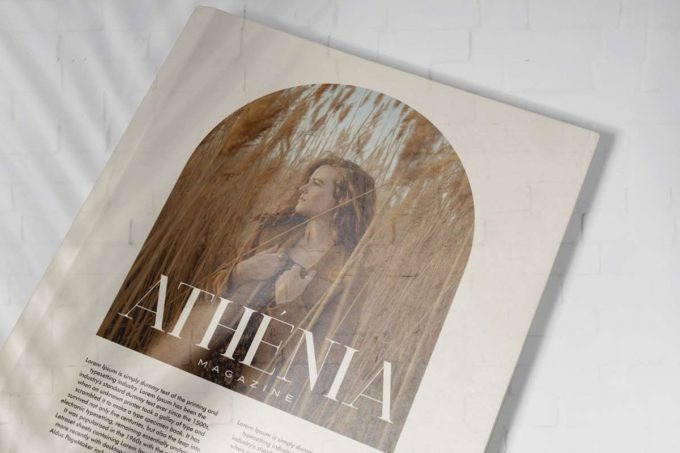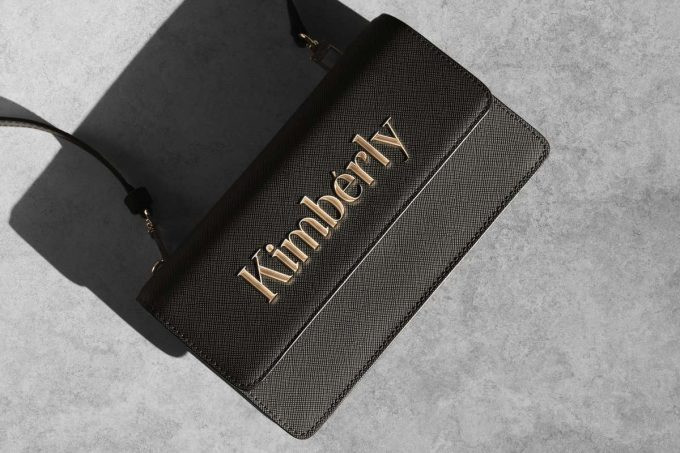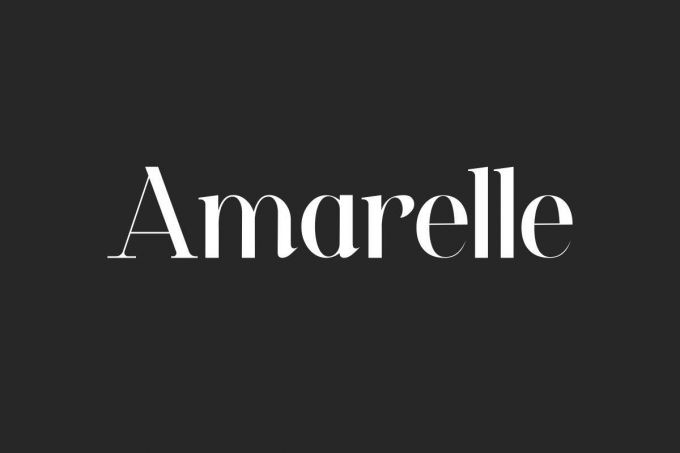
Amarelle Font
Amarelle Serif Font is a stunningly elegant serif display font, exclusively designed by VinType Studio. Every character in this font has a sophisticated style, casual and a luxurious feels that will make your designs standout from crowd while keeping it easy to be recognized. It will be suitable for many industries, such as fashion, beauty product, perfume, event or wedding organizer, publishing, printing, and more!
Amarelle includes full set of Uppercase Basic Characters, Numerals and Punctuation. This font also has two different styles, Regular and Italic. Don’t forget to use this font to complement your design to make it amazing, such as business card, greeting card, signage, invitation, product packaging, brand logo, label, poster, web page, quote, etc.